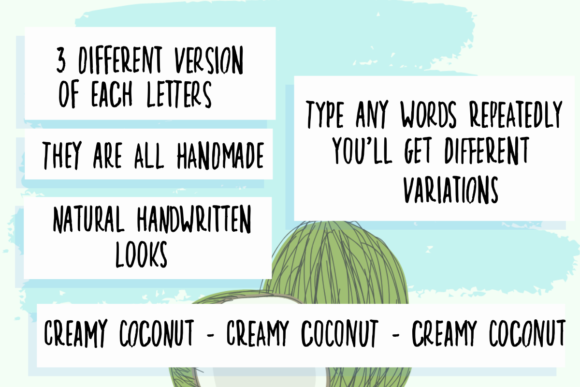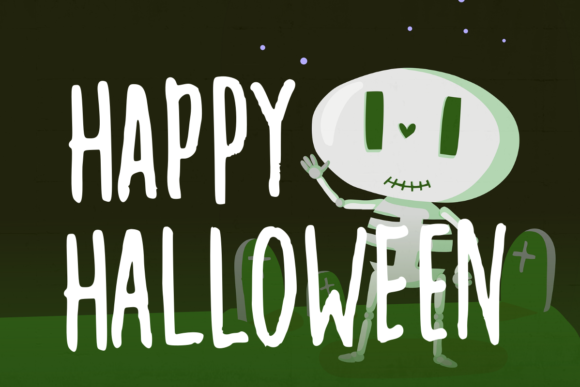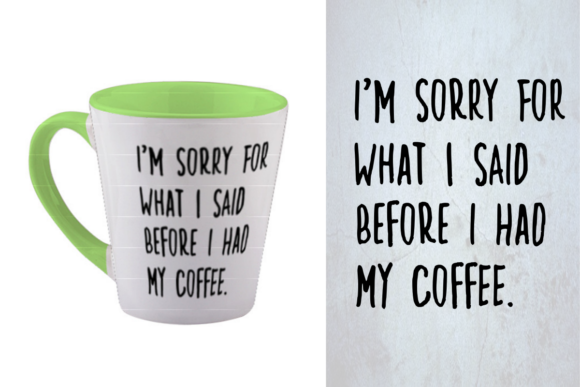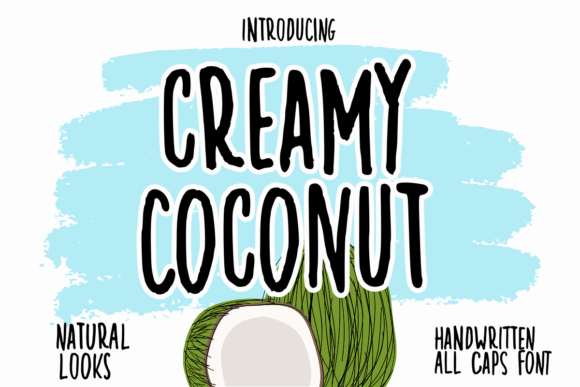
Introduction to Creamy Coconut Font
Creamy Coconut is a simple and natural handwritten font.
Brushed and unique, this font makes the perfect choice for each of your informal crafting ideas .
Why Choose Creamy Coconut Font?
Creamy Coconut Font offers exceptional quality and versatility, making it a valuable addition to your design toolkit. Whether you’re creating for personal projects or commercial use, Creamy Coconut Font delivers professional results.